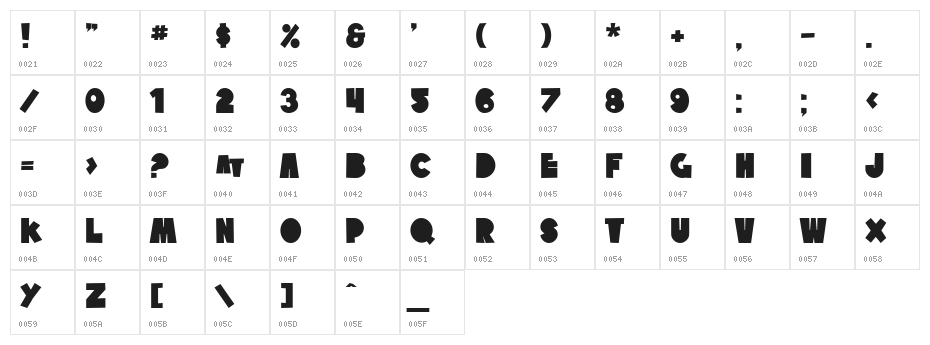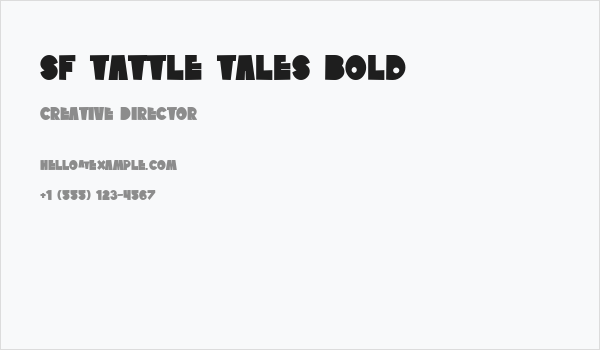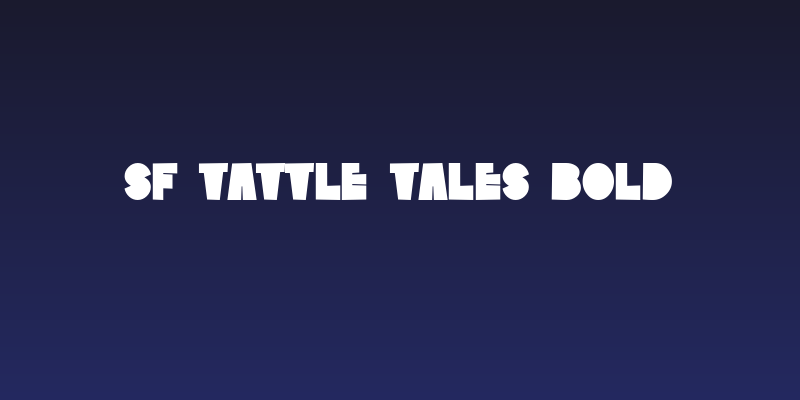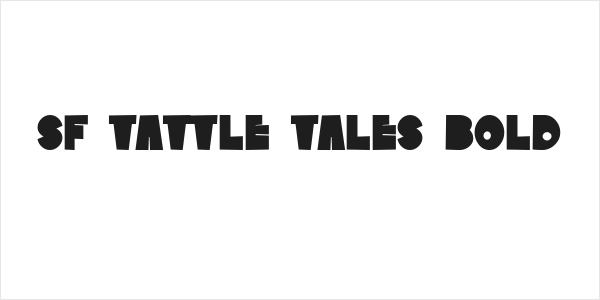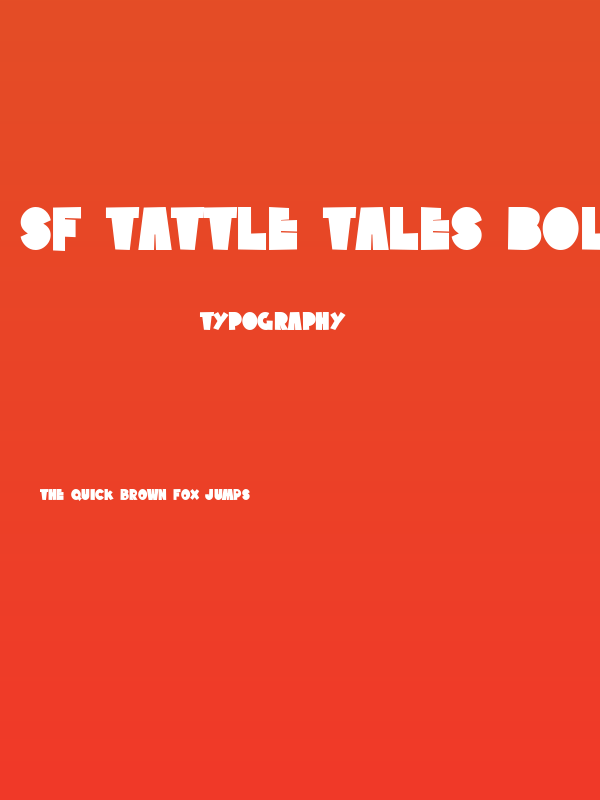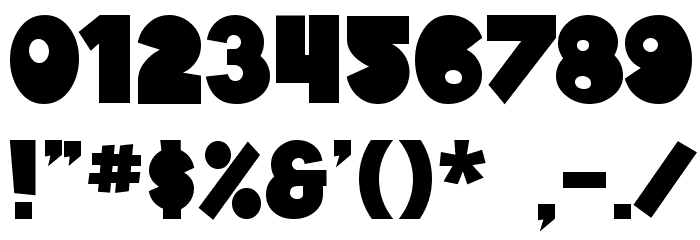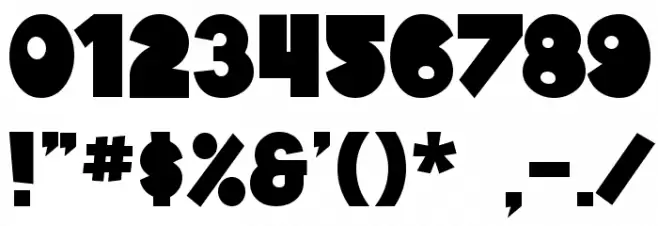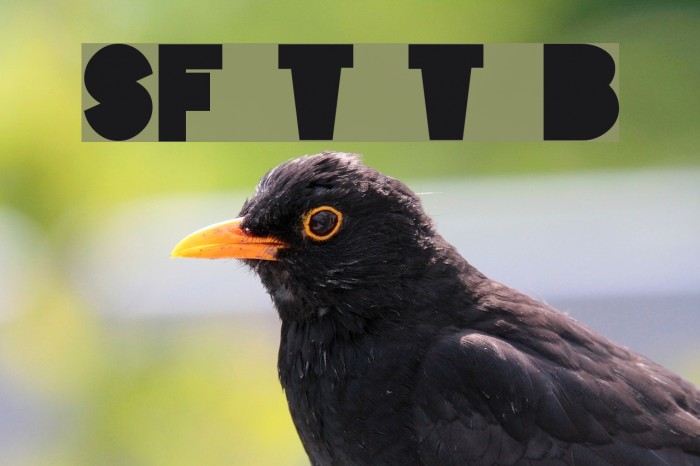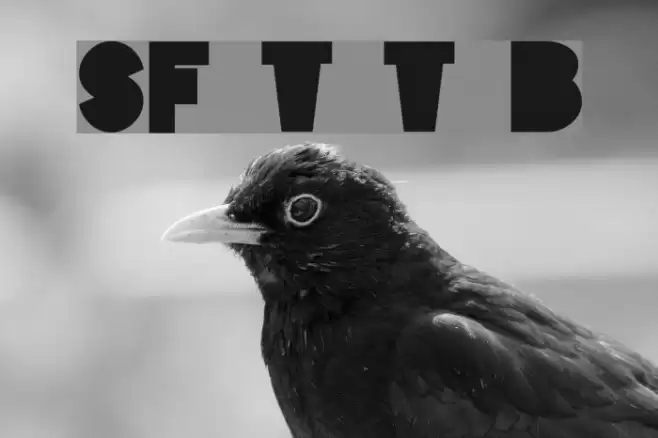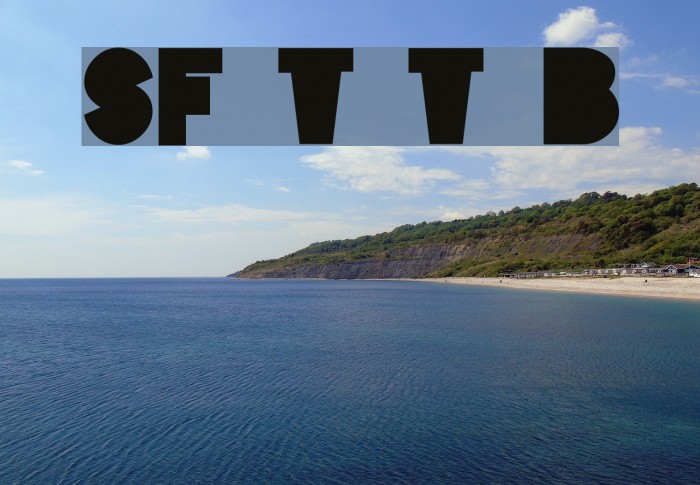
SF Tattle Tales Bold Font
SF Tattle Tales Bold Description
This bold and playful font features thick, geometric shapes with a strong presence. The characters are designed with a unique, blocky style that gives them a distinct and eye-catching appearance. The uppercase letters are particularly striking, with sharp angles and a uniform height that creates a cohesive look. The numbers and special characters maintain this bold aesthetic, making them suitable for attention-grabbing designs. The font's overall style is both modern and decorative, making it ideal for projects that require a strong visual impact.
| Overall Style | Modern, Decorative |